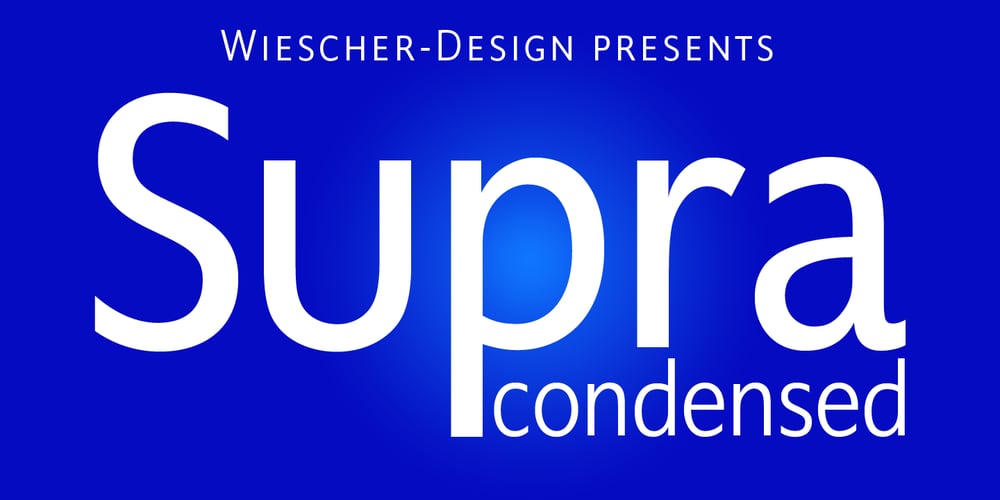
Supra Condensed Font Family was designed by Gert Wiescher and published by Wiescher Design. Supra Condensed contains 16 styles and family package options. »Supra-condensed« – designed by Gert Wiescher in 2013 – is the condensed version to this new sans typeface family of eight weights with matching italics. The condensed version is designed for space-saving typography but with high legibility in mind. The light and normal weights and the dominant x-height with its high ascenders make for easy reading of long copy. The heavy and x-light weights are great for elegant headlines. Supra is an OpenType family.